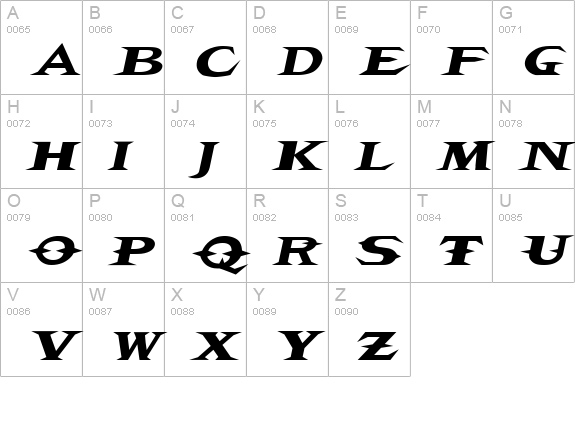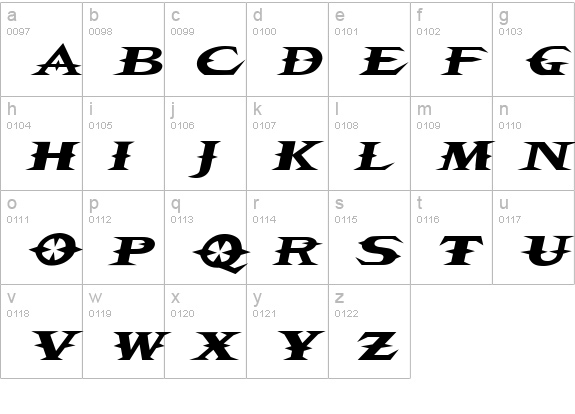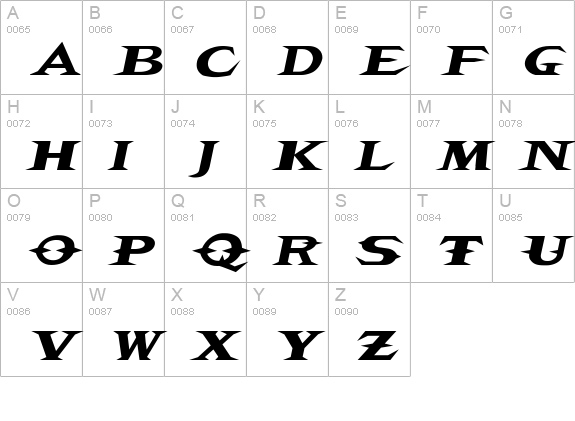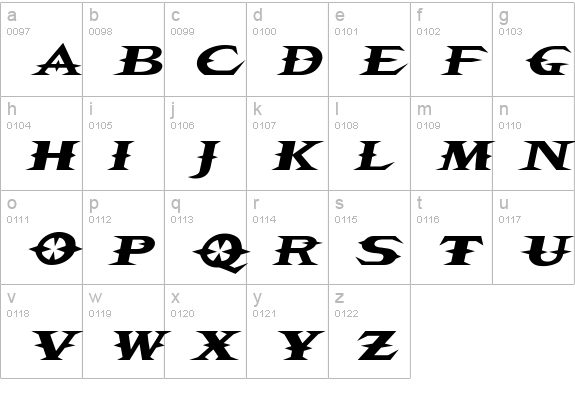
VTCBelialsBladeItalic Font Details
VTCBelialsBladeItalic is a captivating and dynamic font that effortlessly combines elegance with a touch of edginess. Its italicized form adds a unique flair to any project, making it perfect for eye-catching headings, logo designs, and branding materials. This font exudes a sense of power and sophistication, making it ideal for projects that demand attention and make a bold statement. Its sharp and slanted lines create a sense of movement, giving your designs an energetic and modern feel. VTCBelialsBladeItalic is not only visually striking but also incredibly versatile. It can be used in various design contexts, from digital graphics to print materials. Its legibility remains intact even at smaller sizes, ensuring that your messages are conveyed effectively. One of the best features of VTCBelialsBladeItalic font is that it is free. Yes, you read that right! This stunning font is freely available to download at FontsMarket.com. Whether you are a professional designer or a casual enthusiast, you can now access this incredible font without any cost. So, why wait? Add a touch of style and sophistication to your next design project with VTCBelialsBladeItalic. Download it for free at FontsMarket.com and bring your creativity to life!